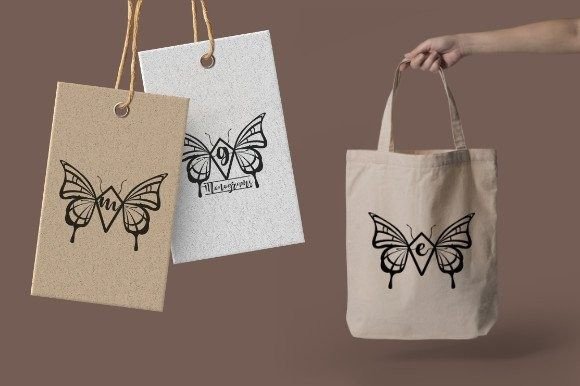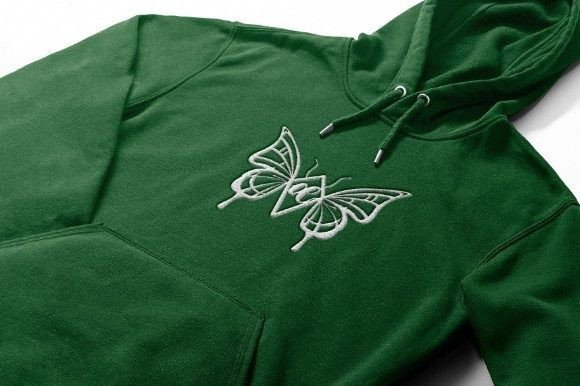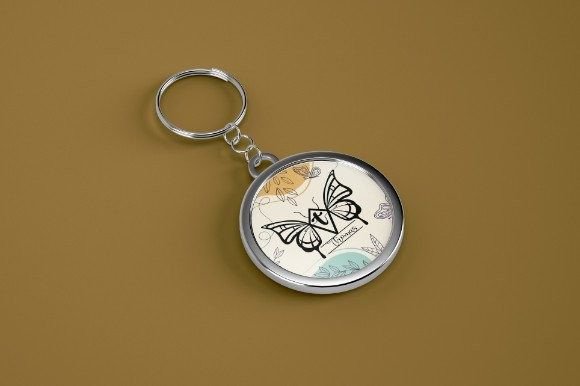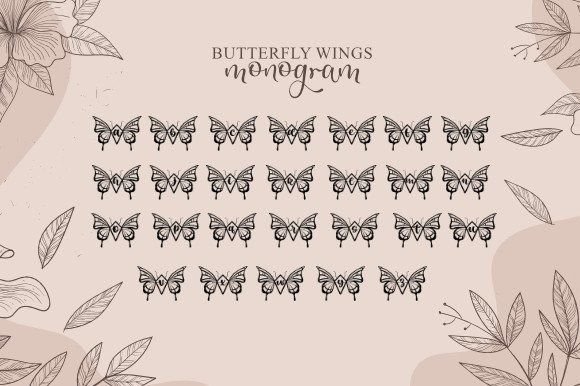
The Magic of Butterfly Wings Monogram Font
I’ll never forget the moment I stumbled upon the perfect font for a client’s spring-themed wedding invitation. I had been searching for what felt like hours, trying out font after font, but nothing seemed quite right. That was until I discovered the Butterfly Wings Monogram Font. It was love at first sight! ✨ The delicate butterfly wings that accompanied each letter were exactly what I needed to bring a touch of whimsy and elegance to the design.
• ✨ Unique and eye-catching design with butterfly wings on each letter
• ✅ Perfect for spring-inspired designs, wedding invitations, and holiday decorations
• ✅ Works beautifully for social media posts, packaging, and flower shop branding
• ✅ Easy to use and customize with various OpenType features
While I adore this font, there are a few things to keep in mind: 🤔
• ⚠️ Some letters may appear a bit delicate or thin, so it’s essential to choose the right font size and color for your design
• ⚠️ The butterfly wings can be a bit finicky when it comes to kerning, so be prepared to make some adjustments
The Butterfly Wings Monogram Font was designed with spring in mind. The creator, a talented font designer, was inspired by the beauty of butterfly wings and the elegance of monogrammed letters. With a passion for typography and a love for nature, they crafted a font that would bring a touch of whimsy and wonder to any design project.